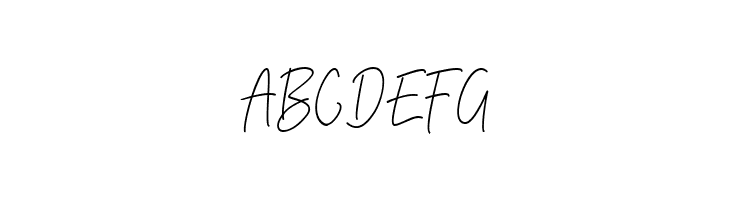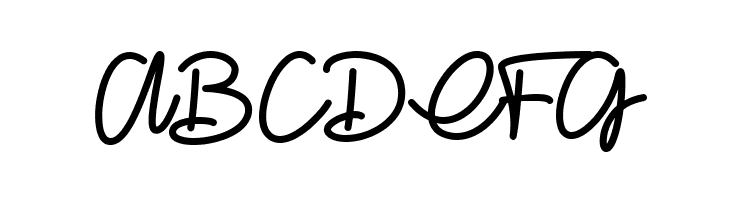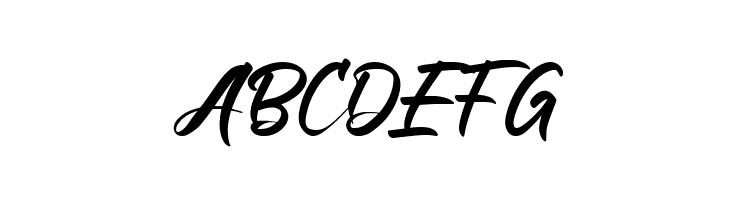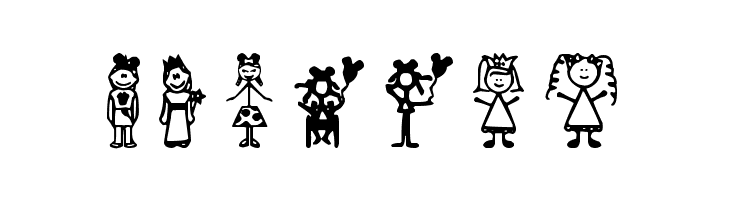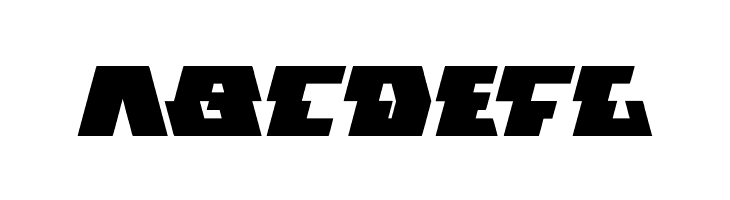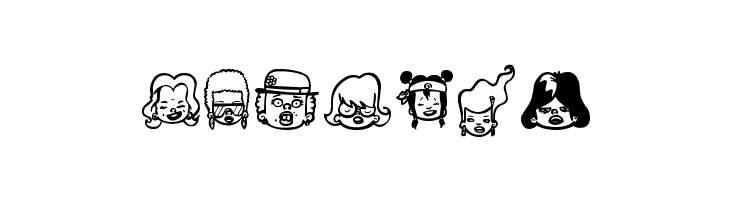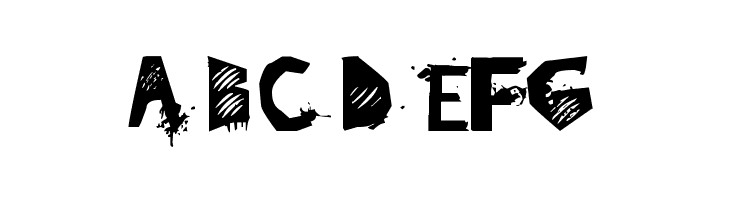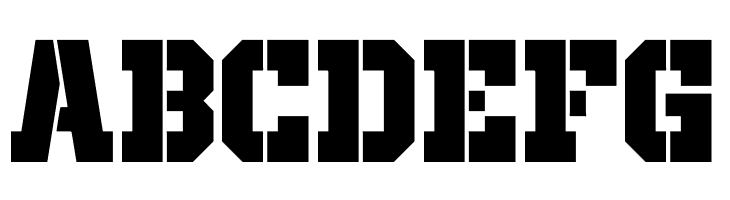
• Girl Characters
• girl power
A decorative font featuring cartoon female faces as characters.
• girl power
A decorative cartoon face font with playful, expressive characters.
• Gisella Jane
A delicate, flowing handwritten font with elegant and fluid strokes.
• Gisselle
A bold, flowing script font with a modern calligraphic style.
• Giza Stencil CAPS
A bold, geometric stencil font with strong industrial appeal.
• GLADIATOR sport
A bold, angular font with a futuristic and dynamic design.
• GLADIATOR sport
A bold, angular font with a futuristic and sporty aesthetic.
• Glitter lovers
A playful, handwritten script font with smooth, flowing characters.
• go wild
( Mahdi Salah )
A rugged, distressed font with a wild, untamed aesthetic.